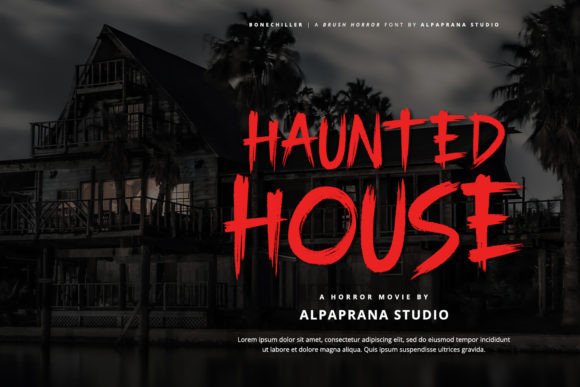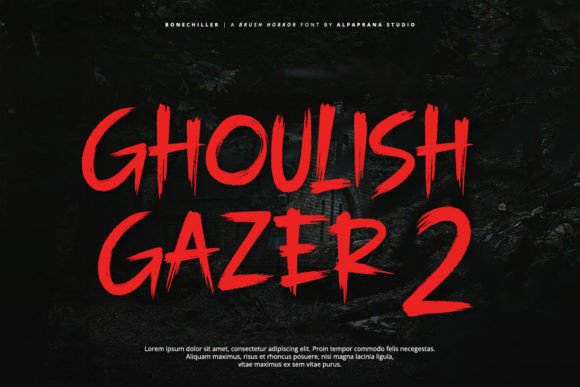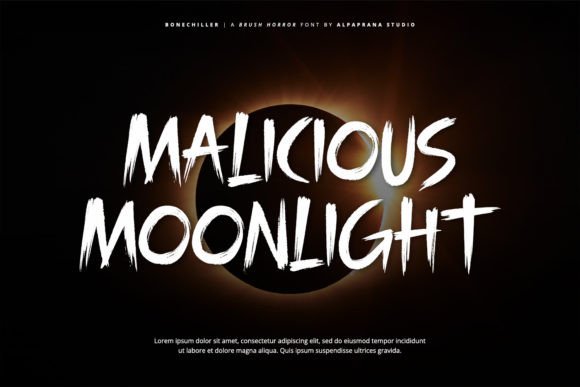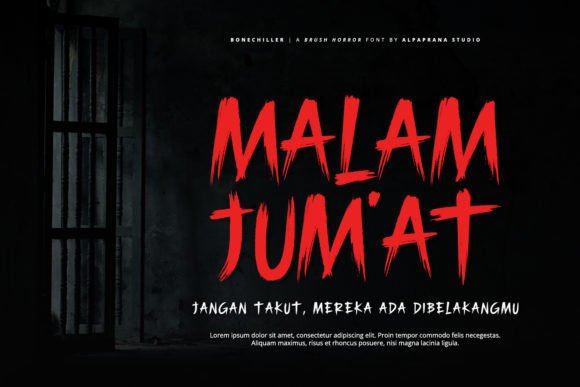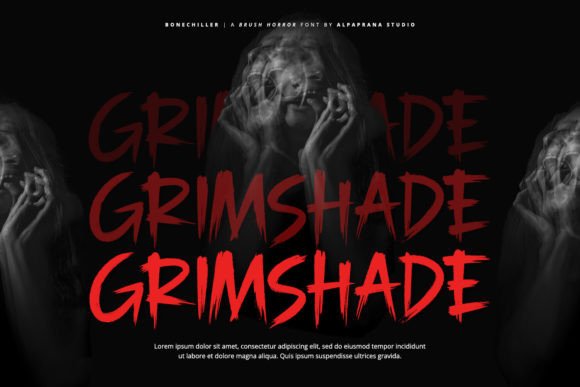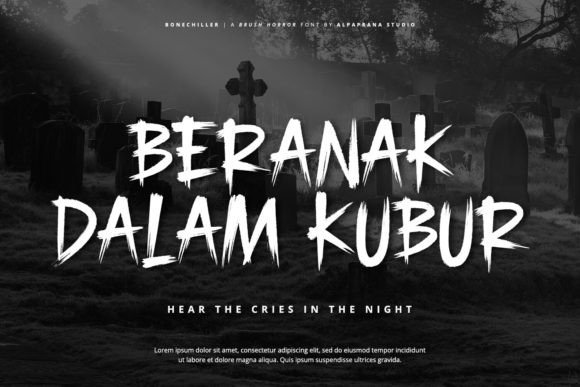
Bonechiller Font: The Ultimate Brush Horror Font for Creepy Designs
Are you a designer or crafter looking for a font that can add a touch of horror and modernity to your projects? Look no further than the Bonechiller Font. This brush horror font is perfect for creating scary and eye-catching designs that will leave a lasting impression on your audience. In this article, we’ll explore the features and benefits of the Bonechiller Font and how it can be used in various design projects.
What is Bonechiller Font?
Bonechiller Font is a brush horror font that combines the eerie and spooky feel of horror fonts with a modern twist. Its unique and creepy design makes it perfect for creating designs that are both scary and stylish. The font is designed to be versatile and can be used in a variety of design projects, from branding and logo design to lettering, logotypes, magazines, packaging, posters, shopping bags, t-shirts, book covers, photography, and special events.
Features of Bonechiller Font
The Bonechiller Font has several features that make it a great choice for designers and crafters. Some of its key features include:
- Unique and creepy design: The Bonechiller Font has a unique and creepy design that is sure to grab attention.
- Brush horror style: The font has a brush horror style that gives it a modern and edgy feel.
- Versatile: The font is versatile and can be used in a variety of design projects.
Benefits of Using Bonechiller Font
The Bonechiller Font offers several benefits to designers and crafters. Some of its key benefits include:
Design Project Ideas Using Bonechiller Font
The Bonechiller Font can be used in a variety of design projects. Here are some ideas to get you started:
- Branding and logo design: Use the Bonechiller Font to create a logo or brand identity for a company or product.
- Posters and flyers: Use the font to create eye-catching posters and flyers for events, concerts, or promotions.
- Book covers: Use the Bonechiller Font to create creepy and eye-catching book covers for horror, thriller, or mystery books.
- T-shirts and apparel: Use the font to create scary and stylish designs for t-shirts, hoodies, or other apparel.
- Packaging and labels: Use the Bonechiller Font to create creepy and eye-catching packaging and labels for products.
The Bonechiller Font is a unique and versatile brush horror font that can add a touch of horror and modernity to your designs. Its creepy and eye-catching design makes it perfect for creating scary and stylish designs that will leave a lasting impression on your audience. Whether you’re a designer or crafter, the Bonechiller Font is a great choice for your next design project.